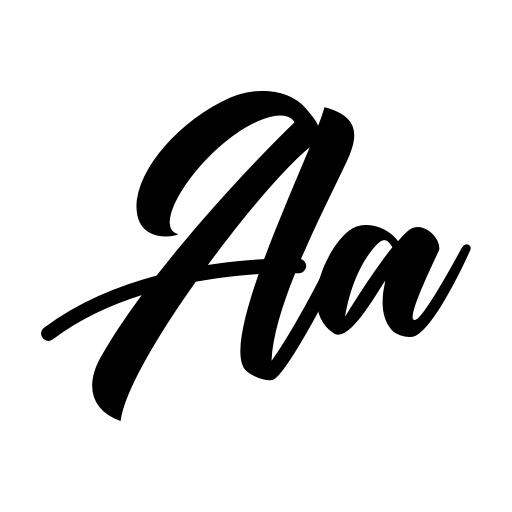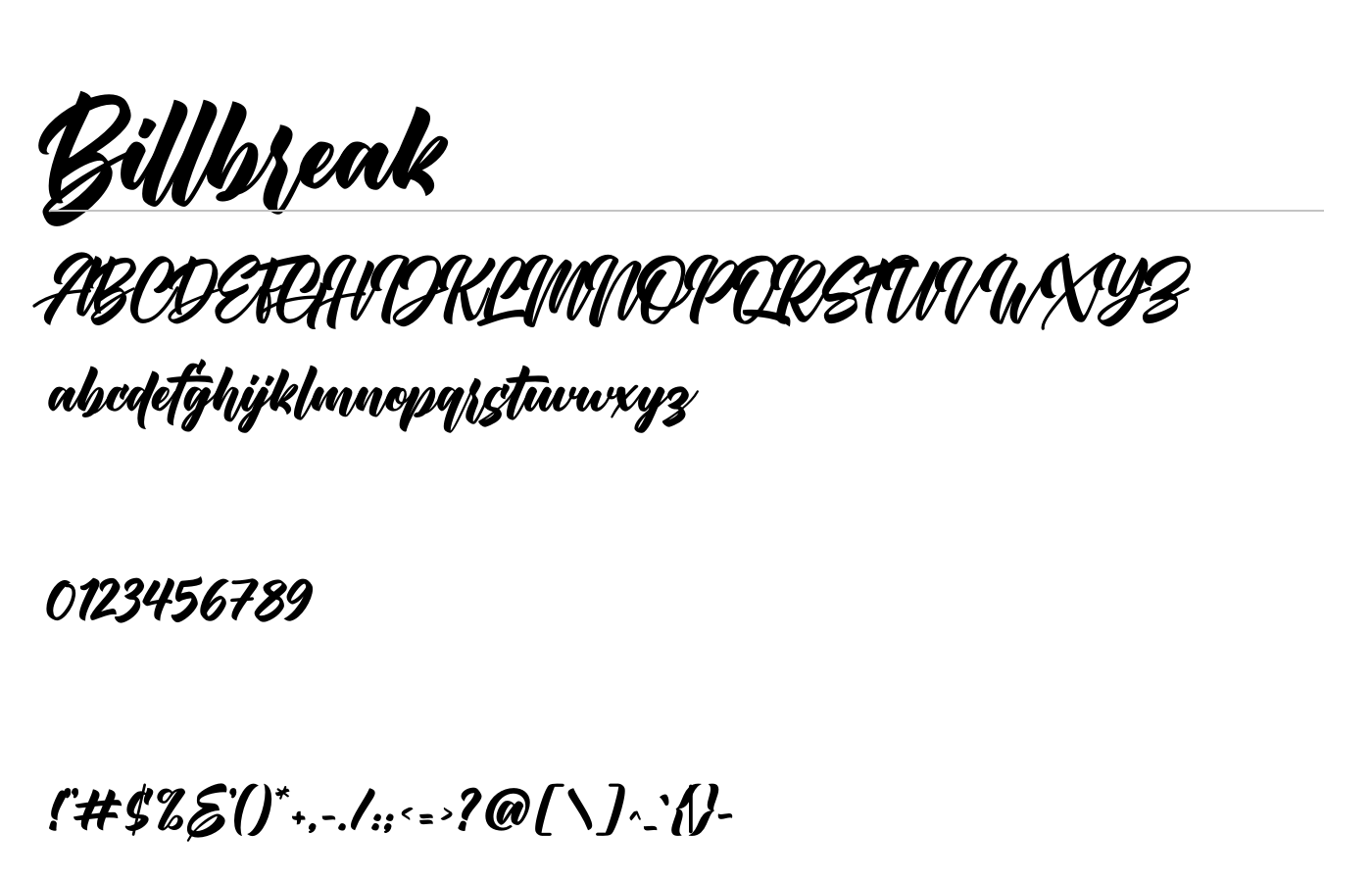
Billbreak is a bold and energetic script font with smooth, flowing strokes that create a dynamic, hand-lettered feel. Its lively, slightly condensed letterforms and natural brush style make it perfect for branding, logos, and headlines where a personal and creative touch is desired. This font works especially well in designs that want to convey warmth, friendliness, and artistic flair.
| Font family | Billbreak Font |
| Designer | Riyadh Rahman |